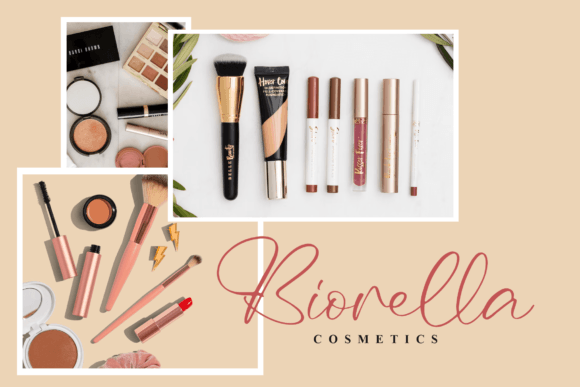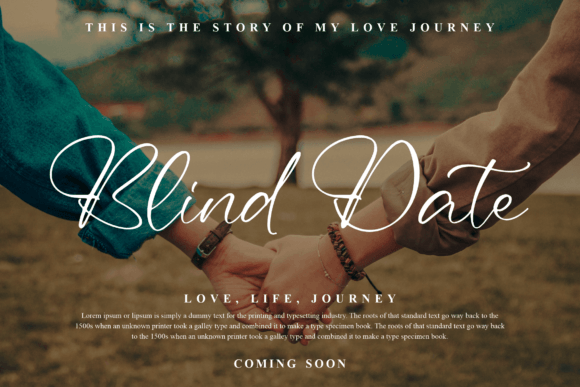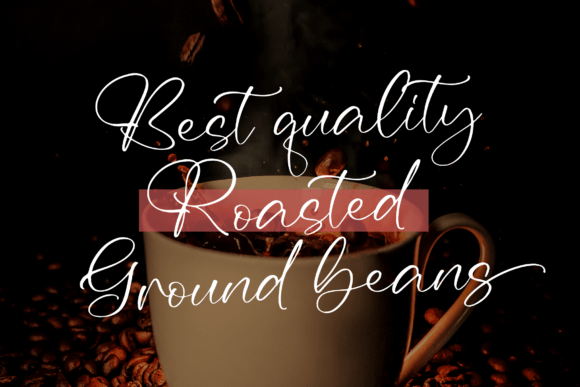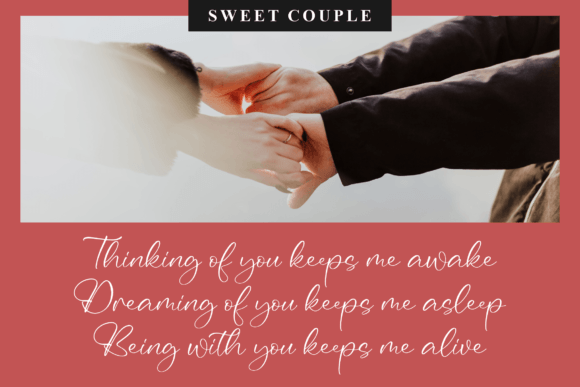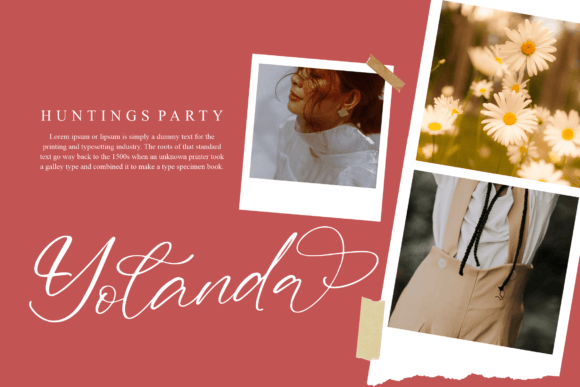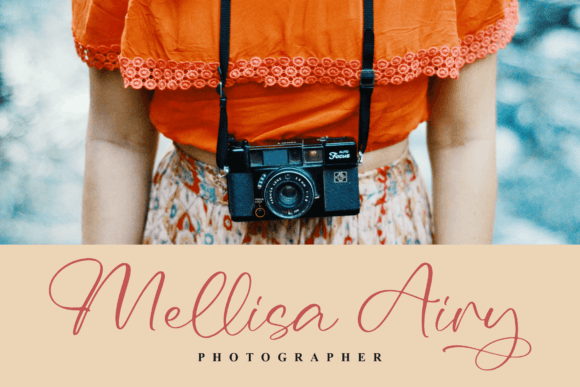
Introduction to Helsinky Charlis Font
Remember the thrill of creating your first handmade card or the satisfaction of designing a beautiful logo? For many designers, those moments spark a love affair with typography that never fades. The search for the perfect font to elevate our creative projects can be a lifelong journey, and today we’re excited to share with you a stunning addition to your design arsenal: the Helsinky Charlis Font.
This elegant handwritten font is a game-changer for designers seeking a high-quality, versatile font that can add a touch of sophistication to any project. With its delicate swashes and PUA-encoded glyphs, the Helsinky Charlis Font is an ideal choice for crafty ideas, from letterheads and titles to stationery. Whether you’re working on a free download or a paid design resource, this font is sure to impress with its transparent background and professional-grade quality.
Key Features of Helsinky Charlis Font
- Unique characteristics: elegant, modern, and highly legible font
Honest Review: Helsinky Charlis Font
I recently had the chance to experiment with the Helsinky Charlis Font, and I must say it’s been a game-changer for my creative projects. This design resource is a free download that offers a high-quality font with a unique, modern aesthetic.
- ✨ The font is well-suited for a variety of design applications, including branding, digital signage, and web design.
While the Helsinky Charlis Font is an excellent choice for many designers, I did encounter a few limitations:
- ⚠️ The font may not be as versatile as some other high-end fonts, and its use is somewhat limited to modern and minimalist designs.
- ⚠️ Some users may find the font’s default spacing and kerning to be a bit off, requiring adjustments to achieve the desired look.
Overall, I’m impressed with the Helsinky Charlis Font and would highly recommend it to designers working on modern, creative projects. Its high quality and ease of use make it a valuable addition to any design resource library.
The Helsinky Charlis Font is commonly used in creative projects such as logo designs, brochures, and business cards. Its elegant and modern design makes it an ideal choice for professional and personal branding.